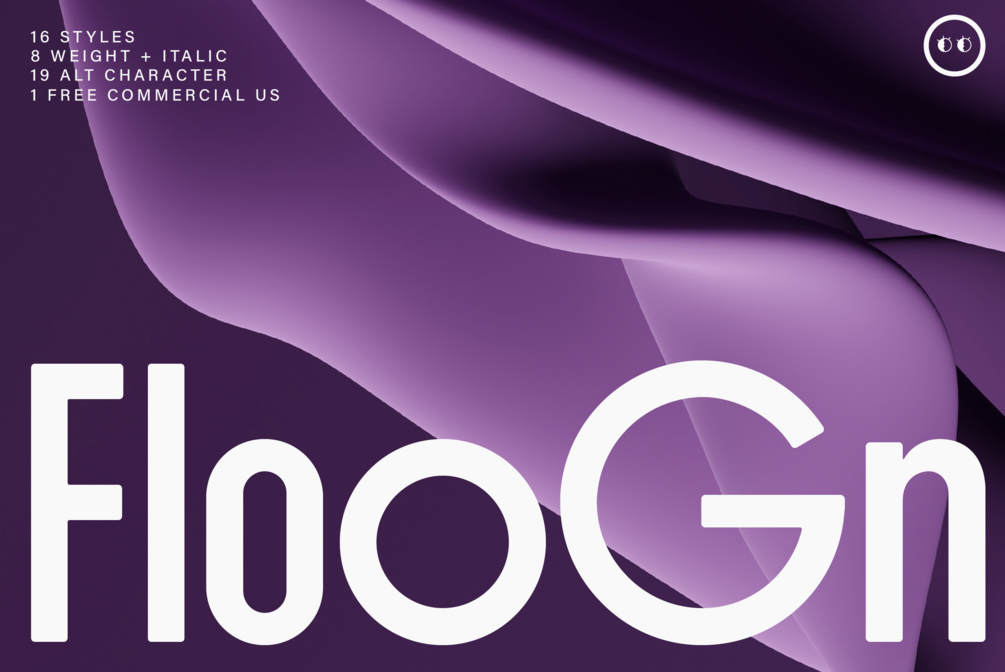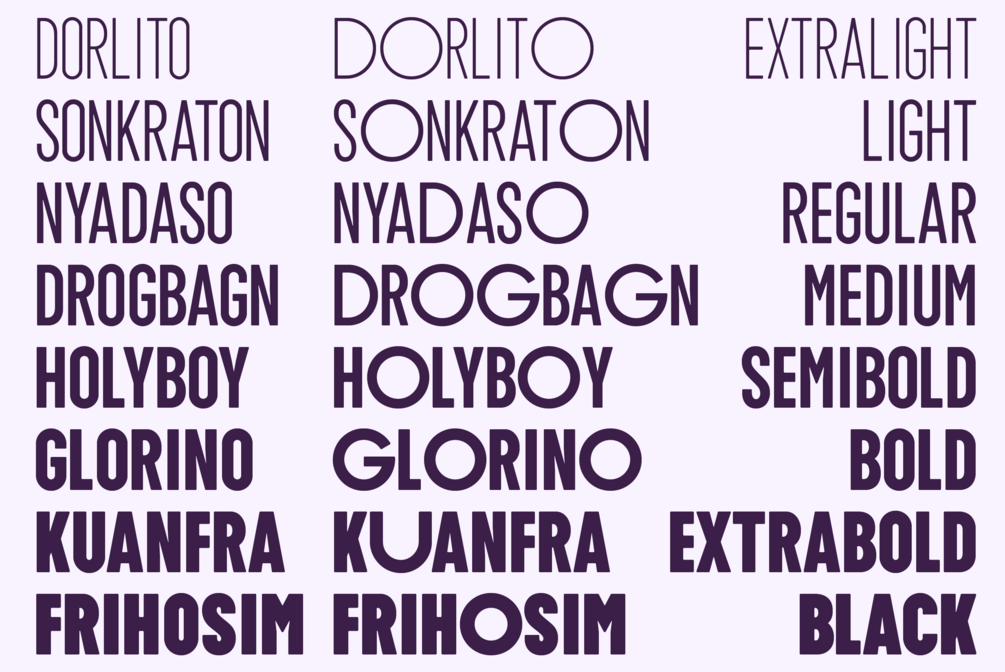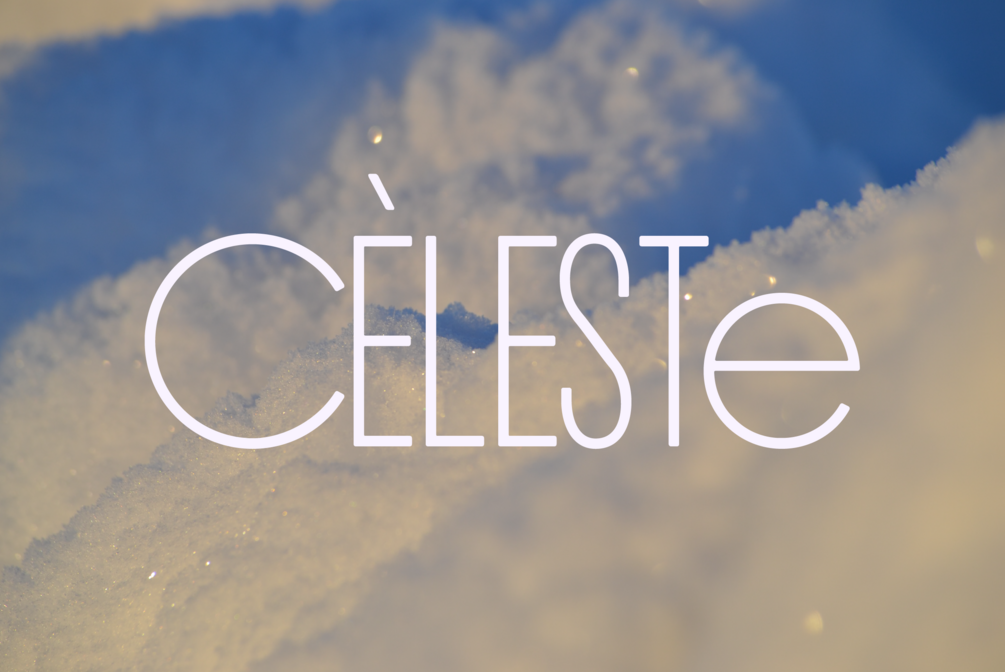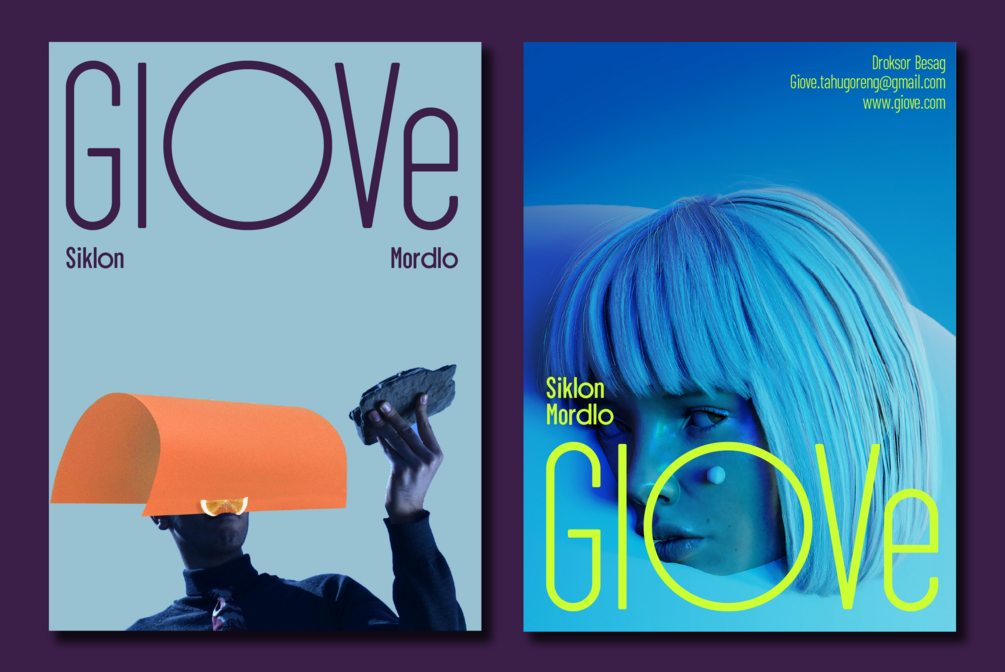
ZT Floogn
ZT Floogn is a modern, dense sans serif typeface with a rounded aesthetic. It features balanced proportions, uniform stroke widths, and subtle variations in typeforms, creating a distinctive and versatile look across all weights.
Ideal for headlines and poster-sized typography, ZT Floogn's narrow shape lends a fresh, friendly personality to any design. The family now includes 16 styles, with 8 weights each in regular and italic versions. One style is offered for free, providing a glimpse into the unique qualities of this font family. Additionally, each style includes a unique alternative font, adding further flexibility to your design projects.